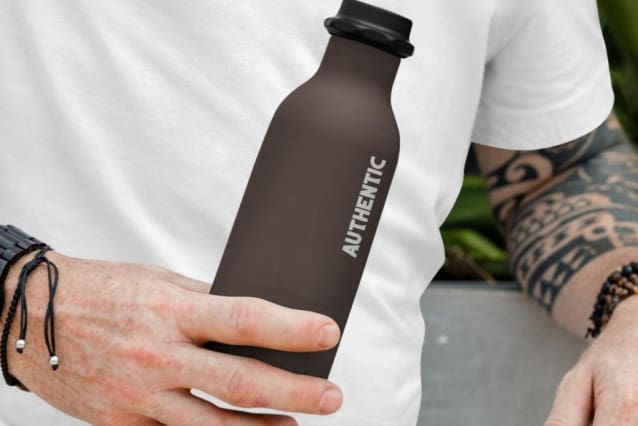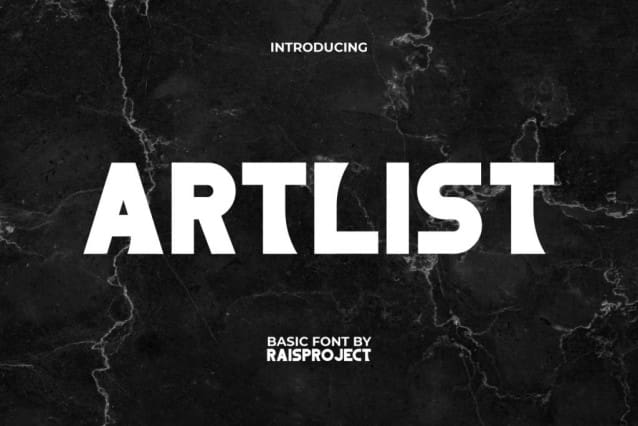
Artlist Font
Artlist Font is a weirdly unique display font with an unusual shapes. The charm in this font can give an artistic impression to every design you make, such as advertisement, brand logo, custom design, flyer, greeting card, invitation, label, magazine, menu, poster, product packaging, quote, signage, web page, and more!
Artlist Font includes a full set of ALL CAPS for Uppercase and Lowercase Letters with their own uniqueness and distinction, Numerals, Punctuation, and Symbol. This cool font will be suitable for various industries, such as café, event and party, furniture, fashion, movie, music, photography, printing, publishing, etc.